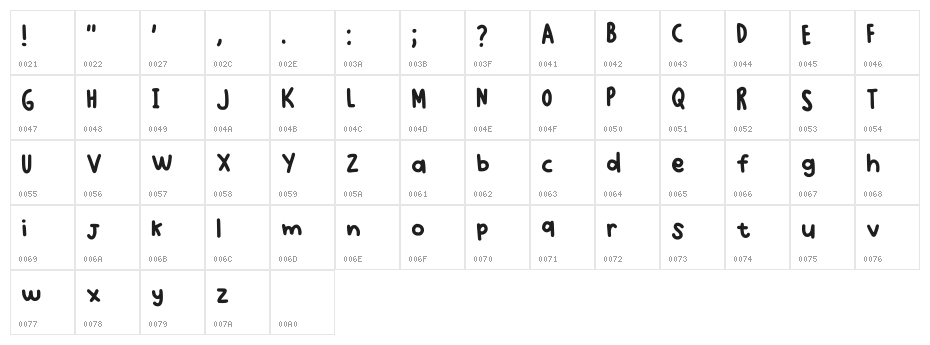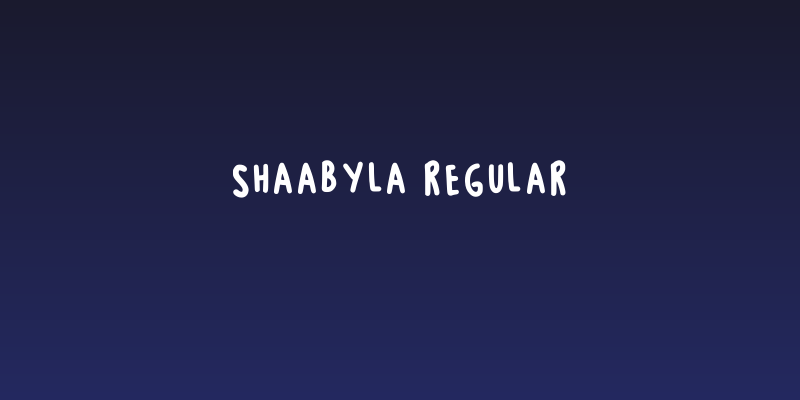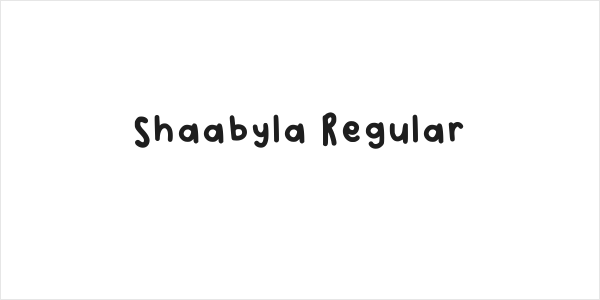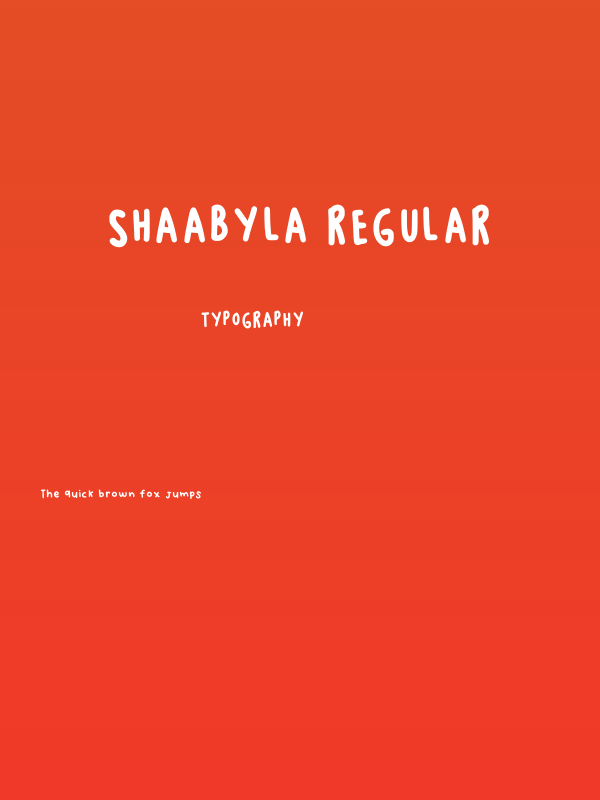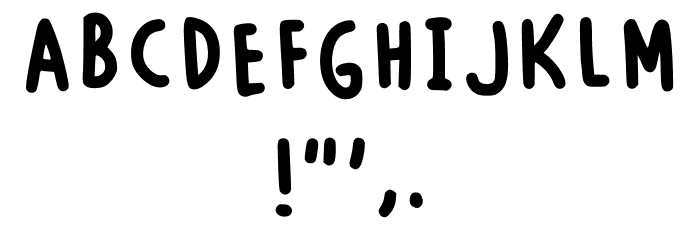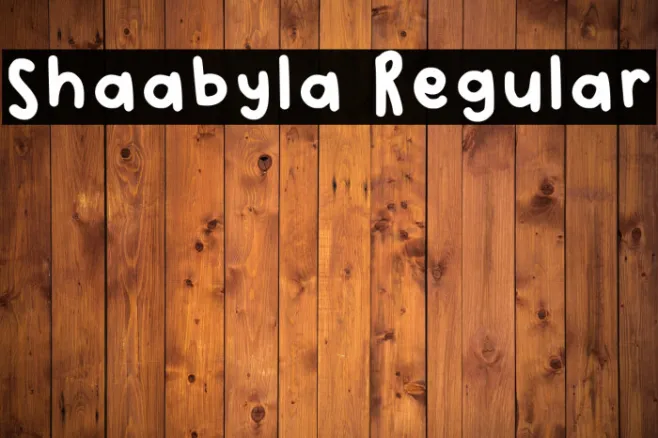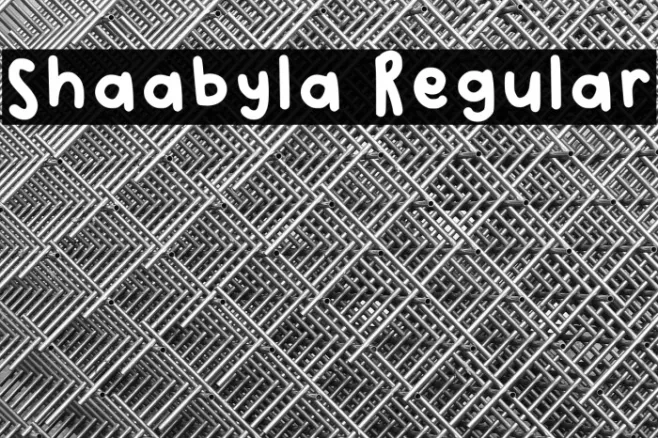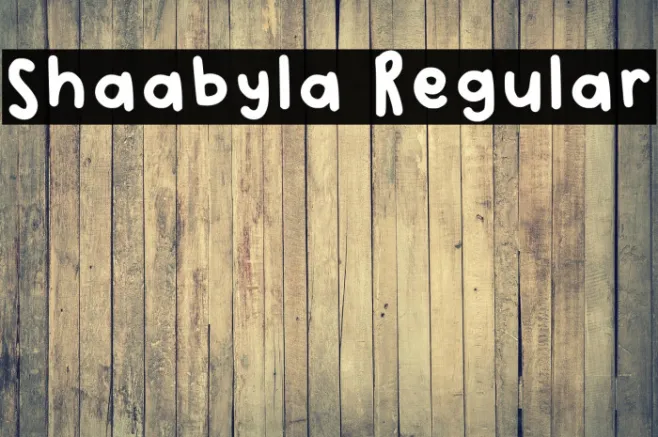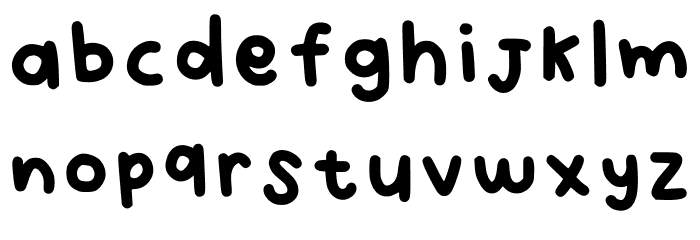
Shaabyla Regular Font
Shaabyla Regular Description
This font features a playful and casual handwritten style, characterized by its rounded and slightly irregular letterforms. The strokes are bold and consistent, giving it a friendly and approachable appearance. The uppercase and lowercase letters maintain a uniform width, contributing to a cohesive look. The font includes a full set of uppercase and lowercase letters, numbers, and a selection of punctuation marks. Its informal style makes it suitable for projects that require a personal touch or a relaxed vibe.
| Use Case | Headlines, Informal text, Branding |
| Proposed Projects | Ideal for children's books, greeting cards, casual branding, and social media graphics. |